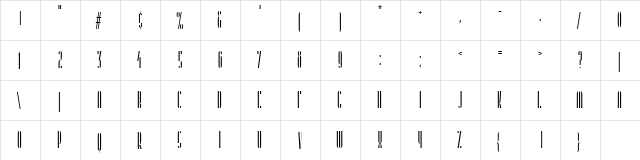
CajunQueen Normal Font Preview
CajunQueen Normal
Design Context for CajunQueen Typeface
CajunQueen is a composed and adaptable typeface that performs quietly and consistently across a wide range of design contexts.